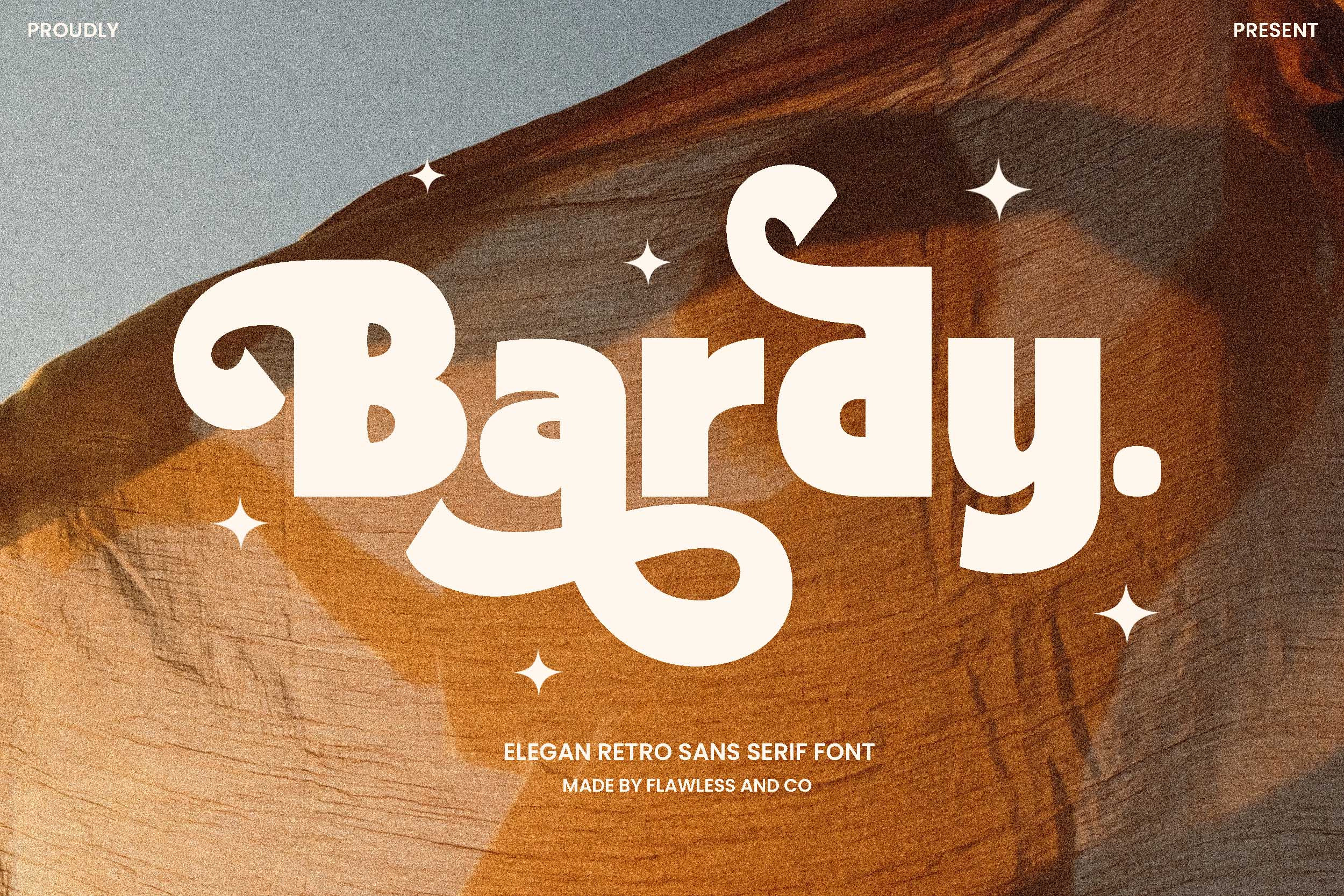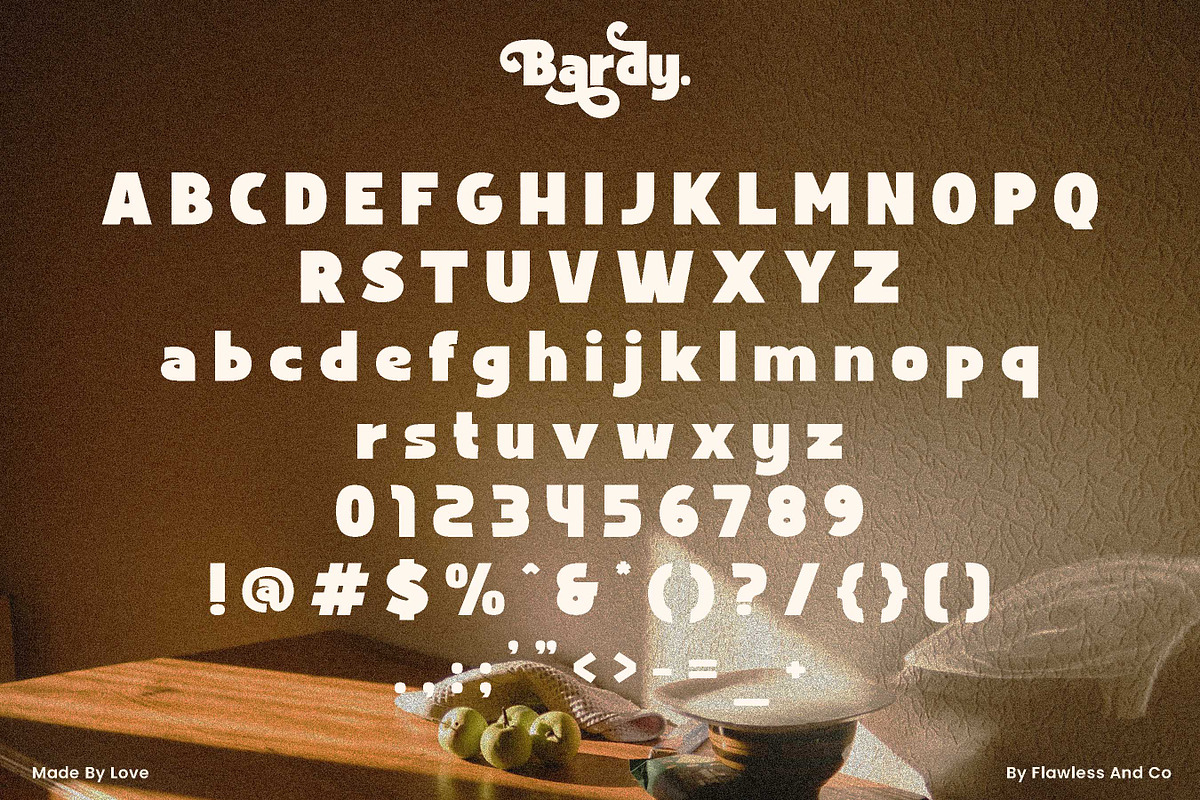
Bardy-Elegant Retro Sans Serif Font
Introducing "Bardy" — a masterpiece in the realm of elegant retro sans-serif fonts. Immerse yourself in the timeless charm of this typeface, where classic design meets contemporary sophistication. Bardy is not just a font; it's a journey back in time with a modern twist, carefully crafted to enhance your design projects.